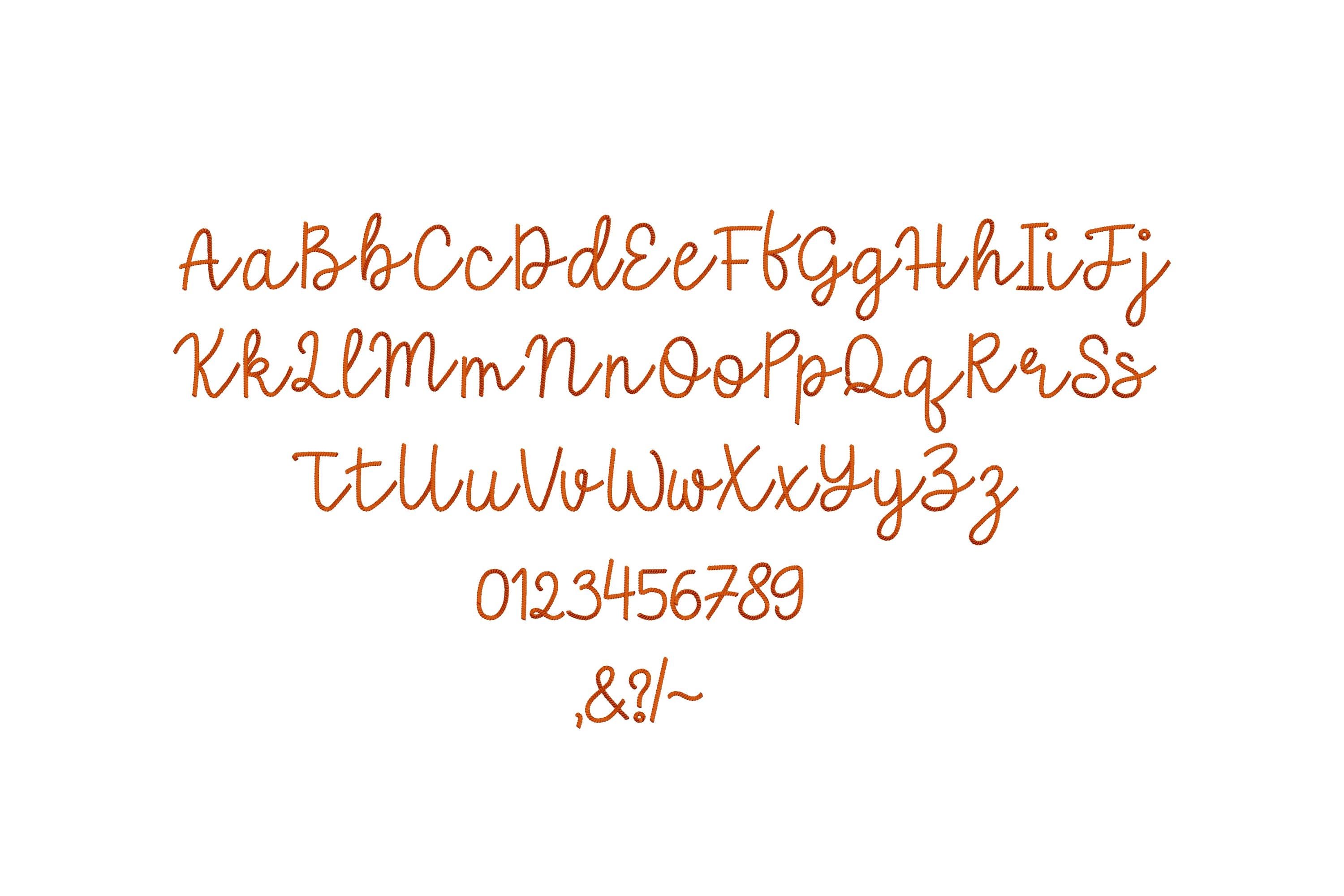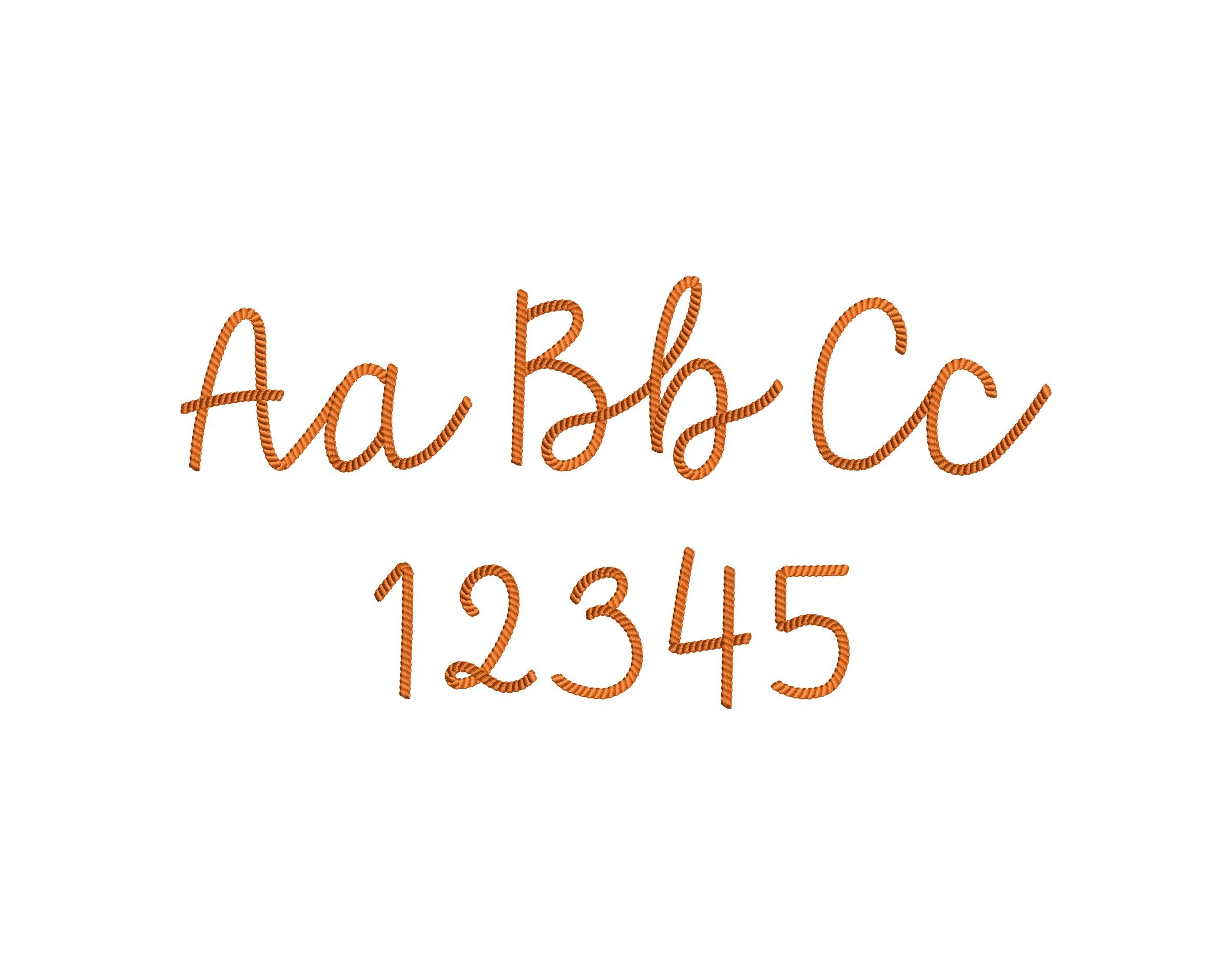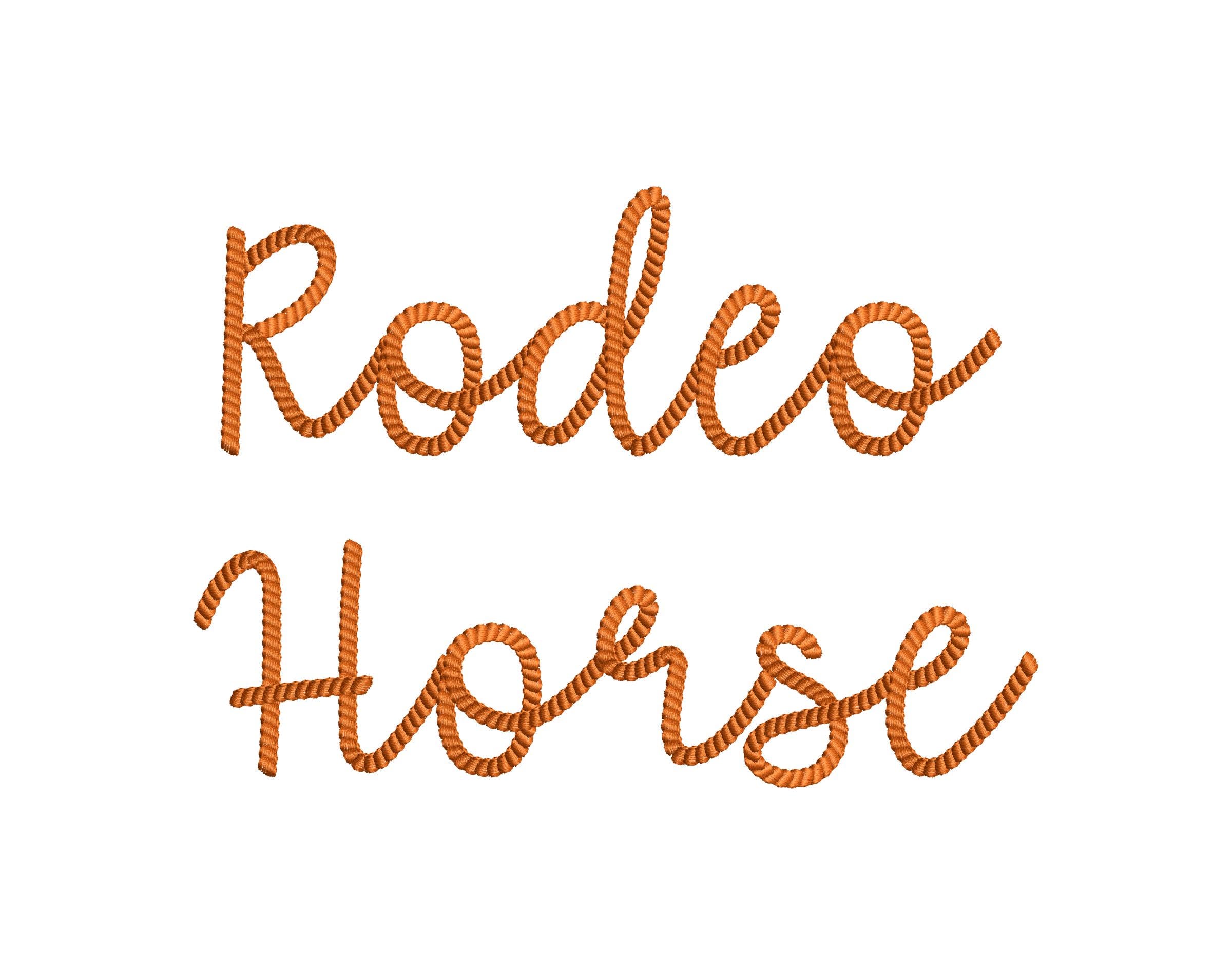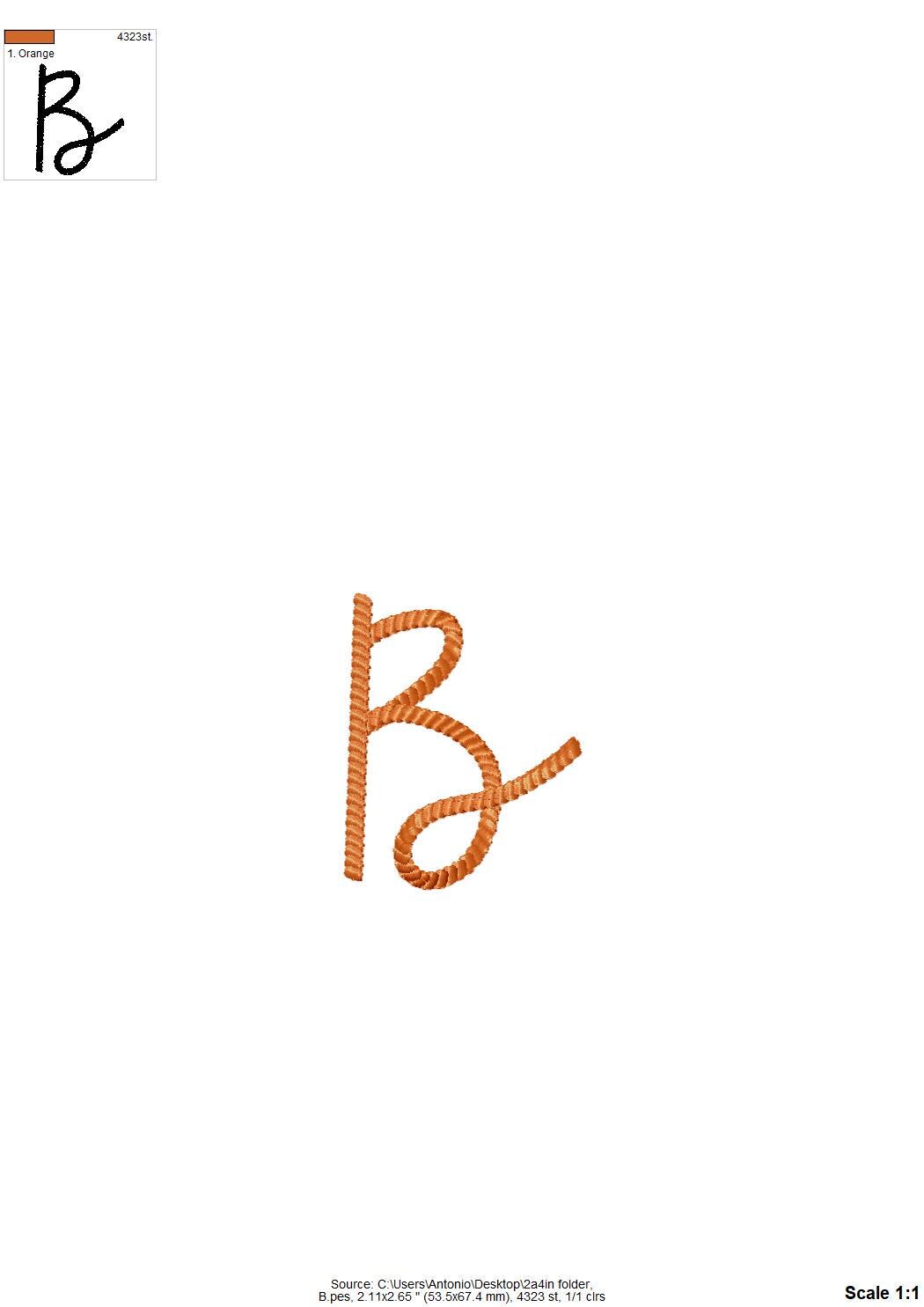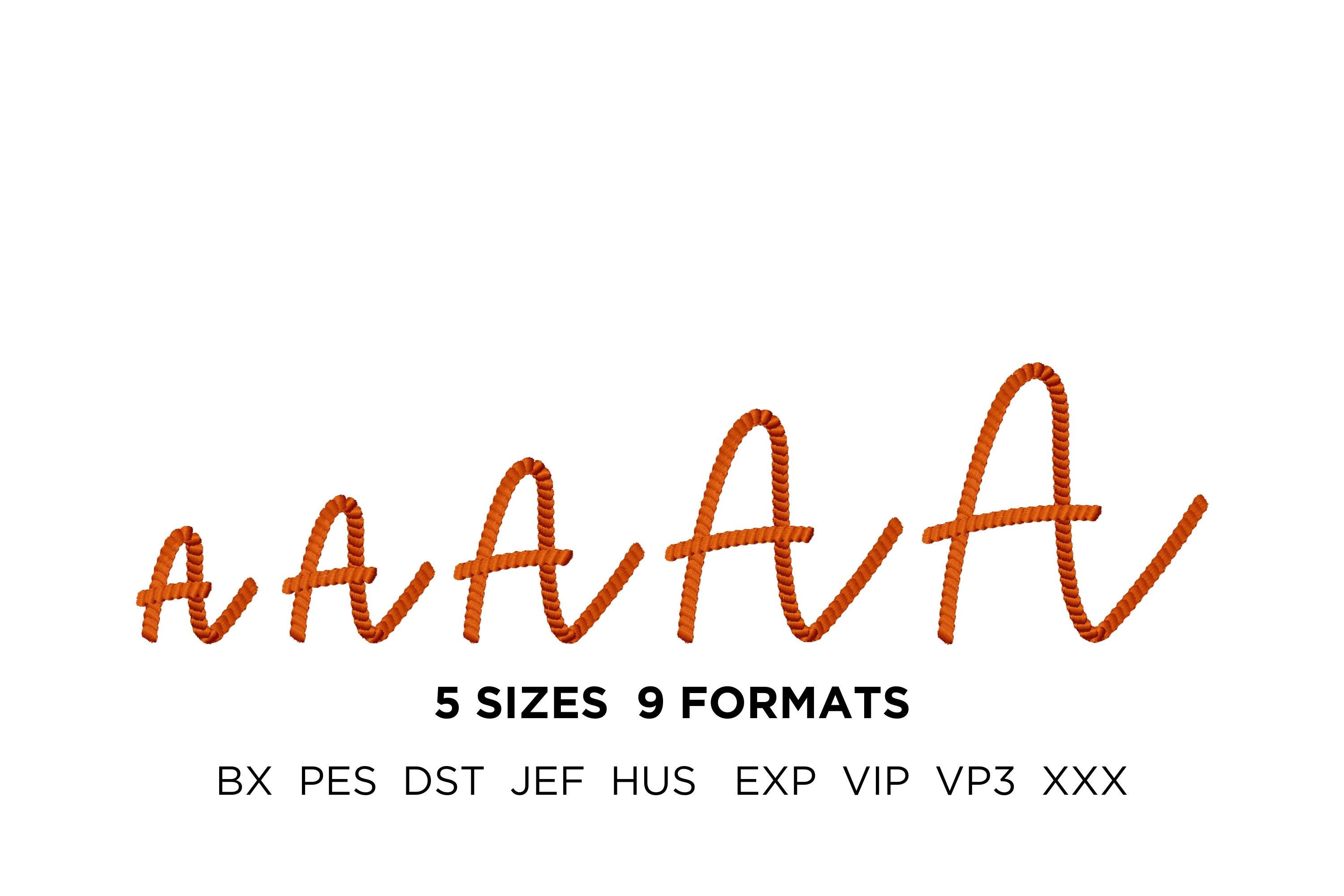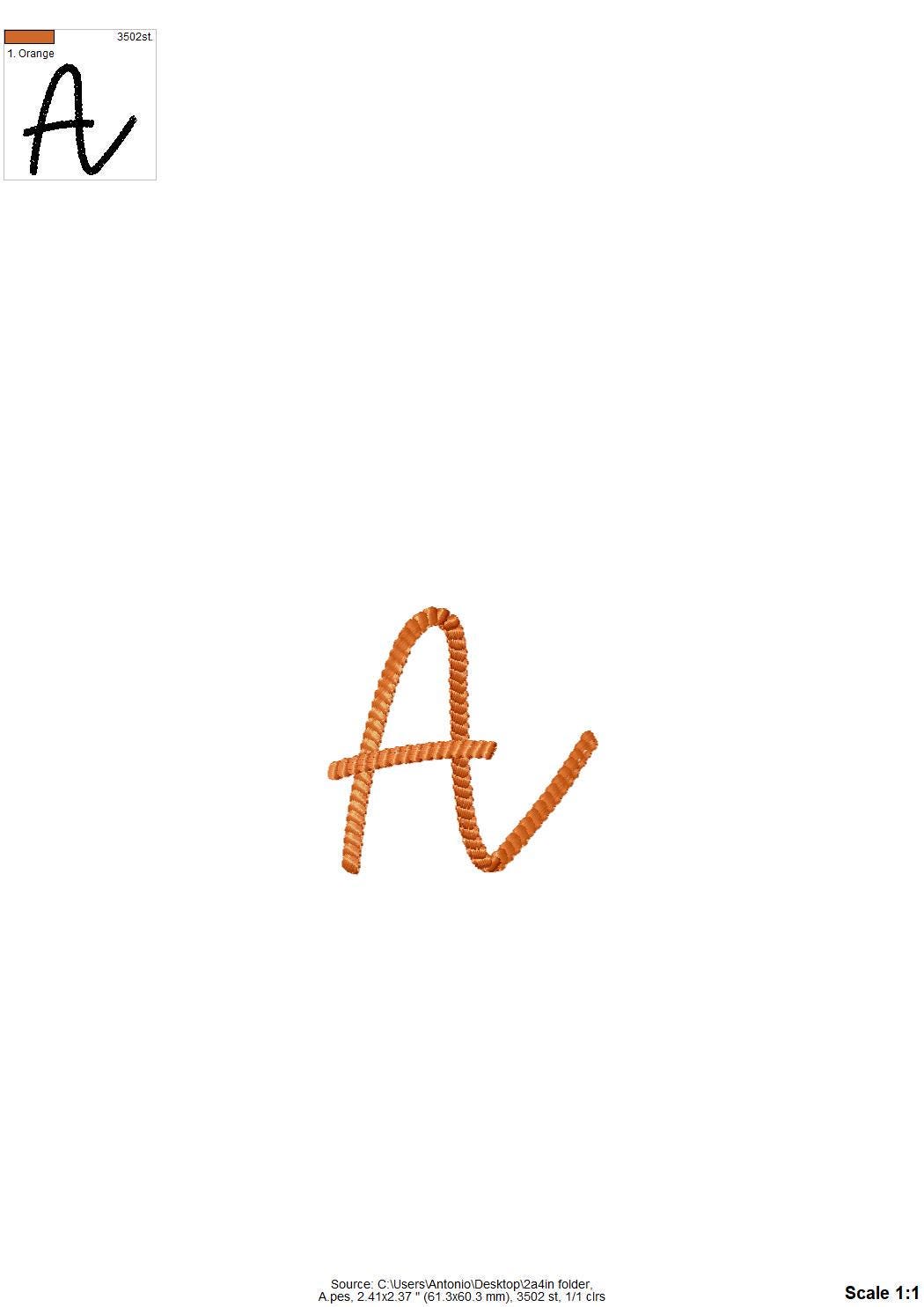
Rope stitch FONT Rodeo Horse Berry Cowboy Alphabet Monogram Machine Embroidery Designs handwritten script Font sizes 1.2 up to 3 inch, and BX
Entire alphabet A-Z uppercase and lowercase letters, numbers 0-9, and punctuation.